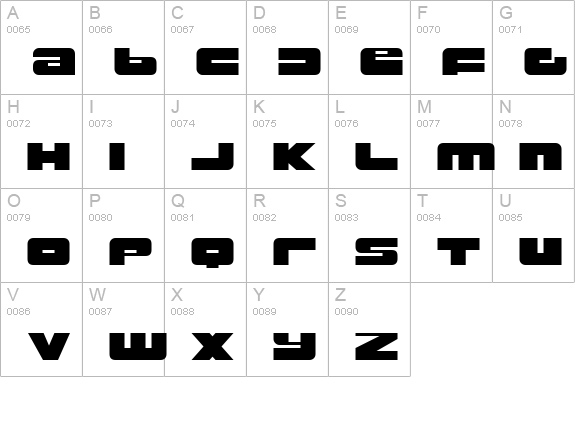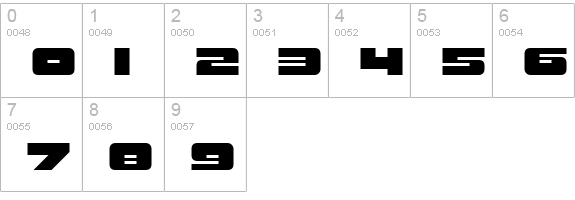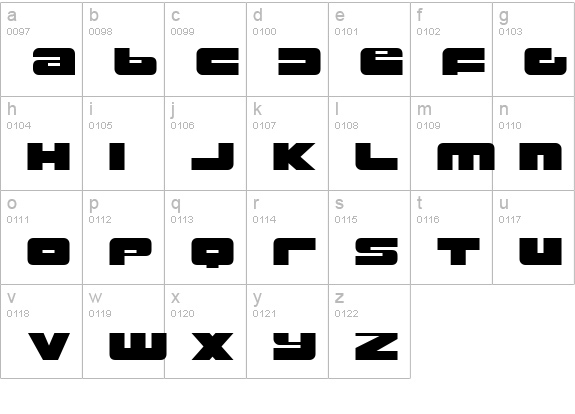
Rustproof Body Font Details
Rustproof Body font is a modern and versatile typeface that exudes strength and durability. Its sleek and clean design makes it perfect for a wide range of design projects, from branding to editorial work. The font features sharp edges and a bold presence that commands attention while maintaining a sense of sophistication. What sets Rustproof Body font apart is its ability to withstand the test of time, just like its name suggests. With its rustproof quality, this font is designed to last, making it a reliable choice for any design project. Whether you're creating a sleek logo or designing a professional layout, Rustproof Body font is sure to make a lasting impression. Best of all, Rustproof Body font is available for free download at FontsMarket.com. This means you can easily access this high-quality typeface without breaking the bank. So why wait? Download Rustproof Body font today and elevate your designs with its timeless appeal and modern aesthetic.